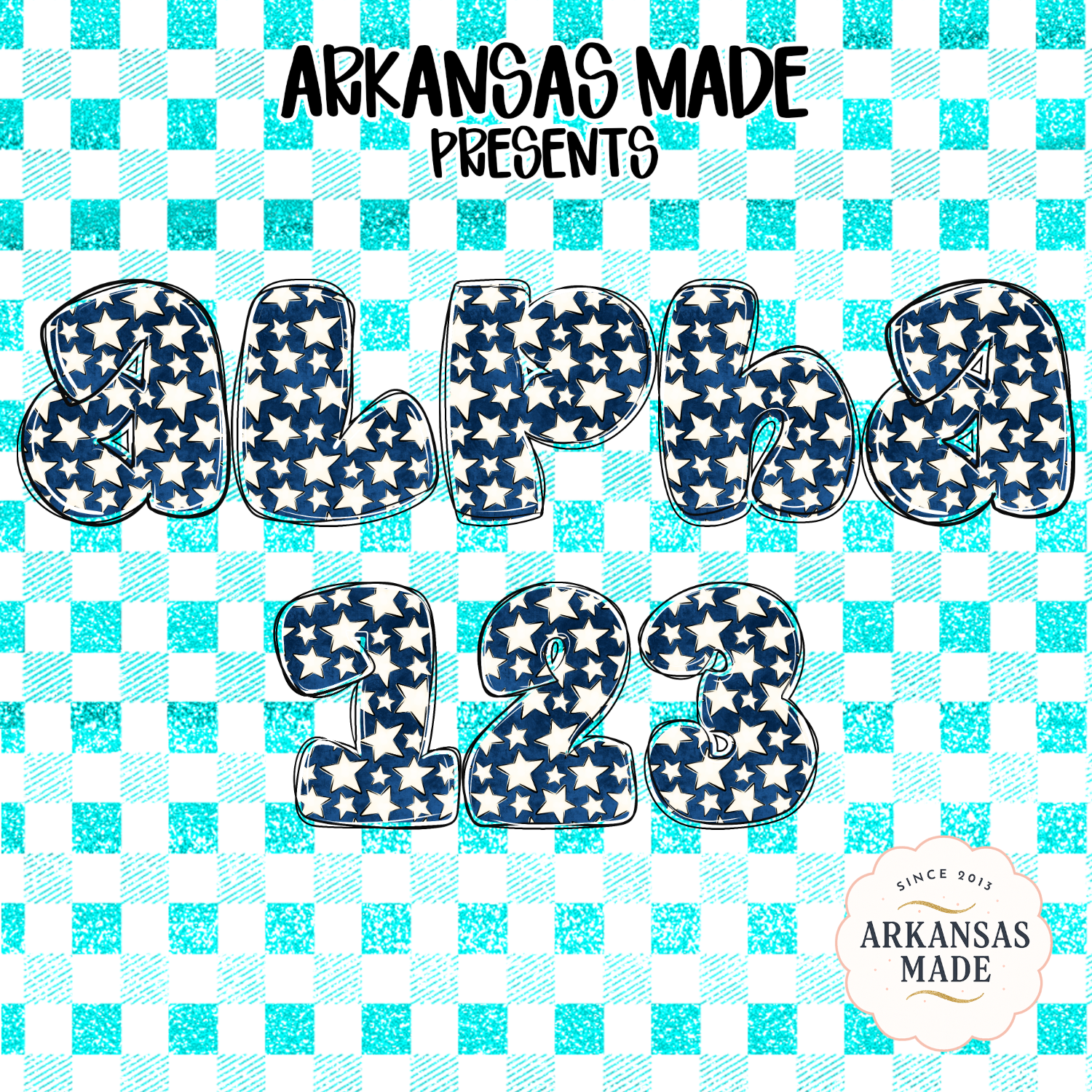
Patriotic Star Bubble Alphabet Numbers PNG, 4th of July Americana Digital Font Set for Sublimation & Crafts
Elevate your creative projects with our unique Patriotic Star Bubble PNG Alphabet and Numbers. Ideal for 4th of July and everyday Americana designs. This digital alphabet set, featuring a faux distressed star print within bubbly letters and numbers, is perfect for crafters and small business owners. Add a touch of classic American charm to t-shirts, party decor, invitations, and more for patriotic holidays or year-round celebrations.